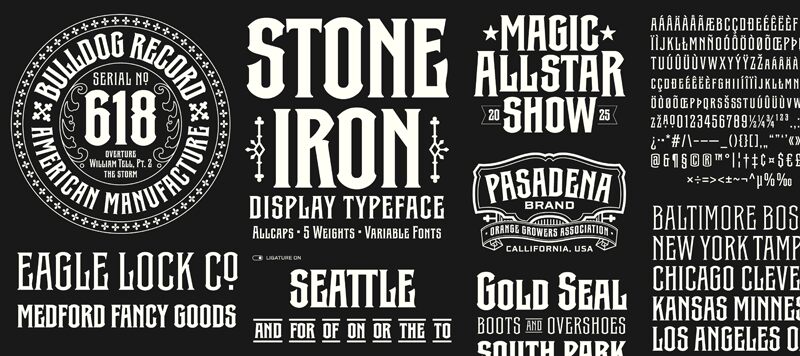
Stone Iron Semibold
Stone Iron Semibold font by Ilham Herry is a free retro display typeface. Part of the Stone Iron family, it stacks tall, narrow letters with chiseled edges and sturdy verticals that feel like they’ve been forged from metal. The chunky weight and sculpted curves give it a rugged, sign-painter energy—somewhere between vintage saloon lettering and old-school industrial branding—with a tight rhythm that pulls the eye straight through a wordmark.
Using Stone Iron Semibold, this free font shines on posters, beer or whiskey labels, bar and restaurant branding, event titles, book covers, and bold merchandise graphics. Its condensed shape lets you pack strong headlines into tight spaces without losing impact. Pair it with a clean, modern sans-serif for body copy and small captions, and keep Stone Iron Semibold large so its carved, ironwork character really comes through.
Condensed typeface with unique spurs, this font boasts OpenType magic for catchy catchwords and optimal spacing. Featuring 5 static fonts and 1 variable font